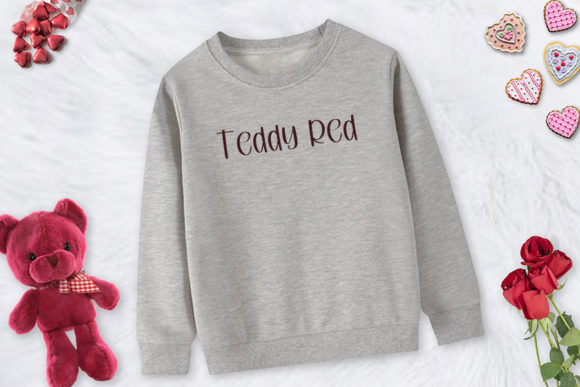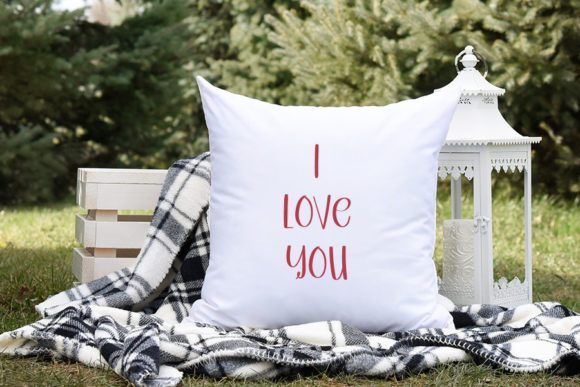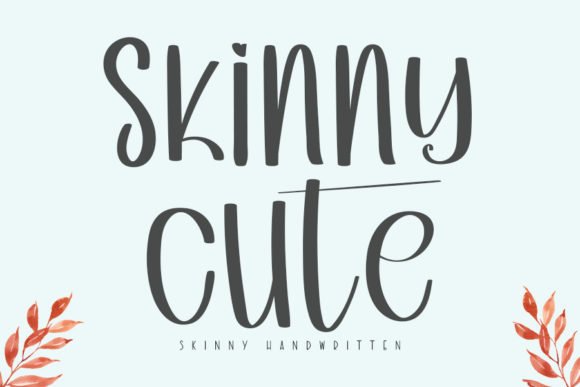
Introduction to Skinny Cute Font
Skinny Cute is a cute and informal handwritten font.
It will elevate a wide range of crafting ideas, from cards, to branding, labels and much more Add it confidently to your favorite creations and let yourself be amazed by the outcome generated.
Key Features of Skinny Cute Font
Why Choose Skinny Cute Font?
Skinny Cute Font offers exceptional quality and versatility, making it a valuable addition to your design toolkit. Whether you’re creating for personal projects or commercial use, Skinny Cute Font delivers professional results.